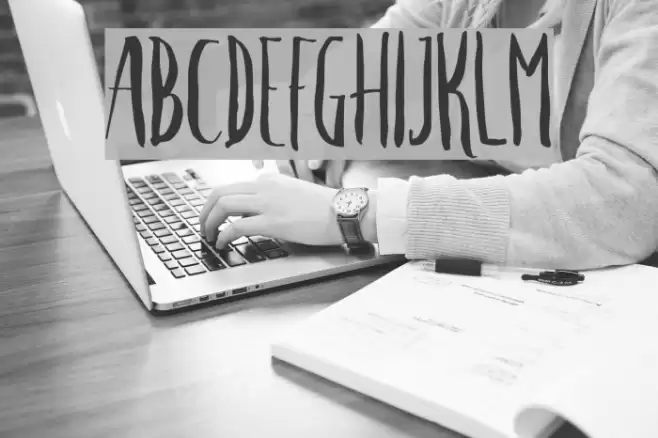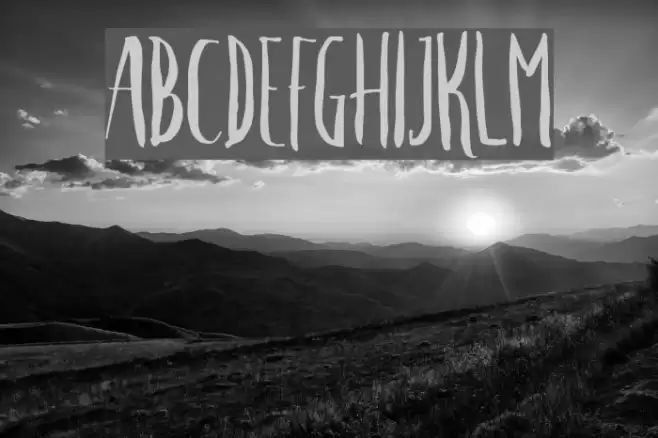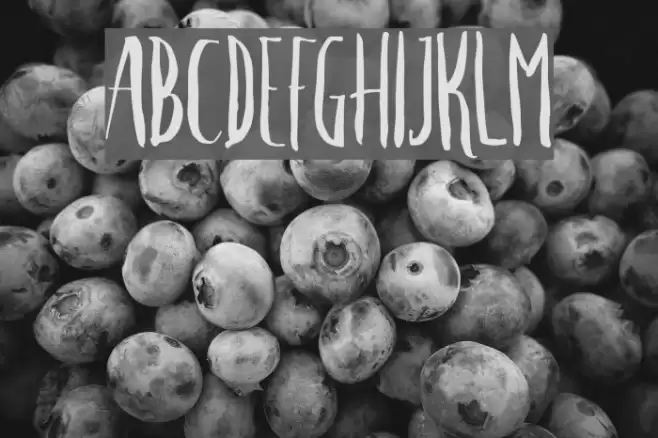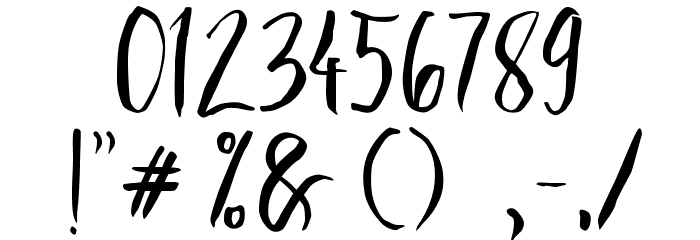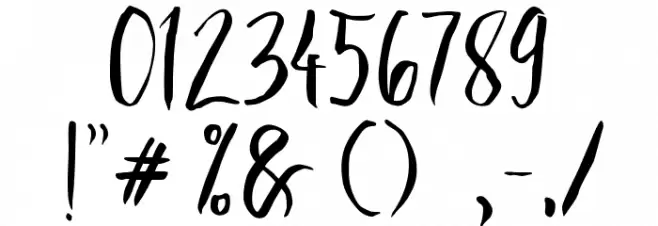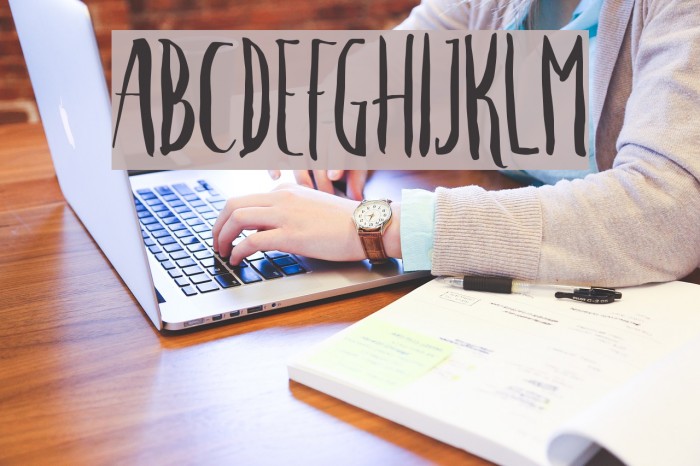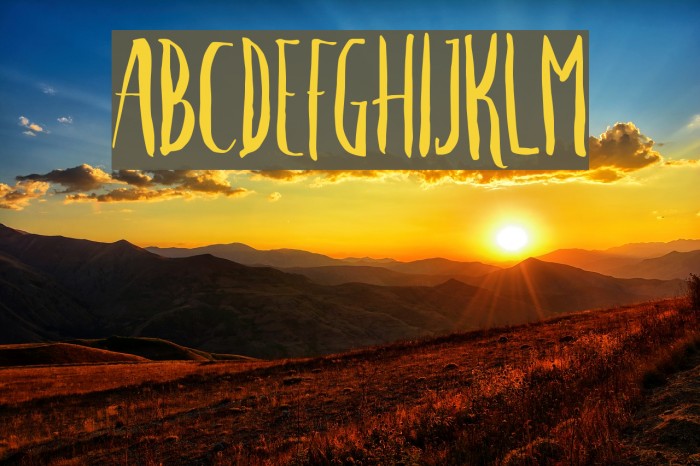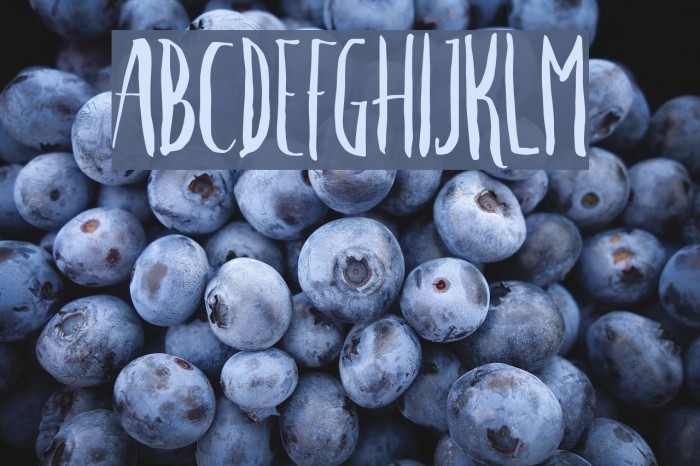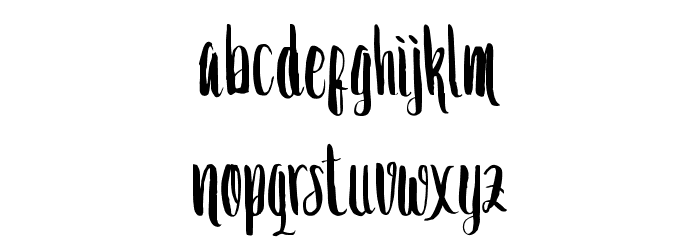
CrashTwo Font
CrashTwo Description
This font features a playful and artistic handwritten style, characterized by its irregular and dynamic letterforms. The uppercase letters are tall and slender with varying stroke widths, giving them a lively and energetic appearance. The lowercase letters maintain a similar style, with some letters having unique loops and curves that add to the font's charm. The numerals are bold and distinct, matching the overall whimsical aesthetic. The special characters are creatively designed, fitting seamlessly with the rest of the font. This font exudes a sense of creativity and spontaneity, making it ideal for projects that require a personal and informal touch.
A playful and artistic handwritten font with dynamic and irregular letterforms from Uncategorized fonts.
- Proposed Projects: Ideal for greeting cards, invitations, posters, and creative branding projects.